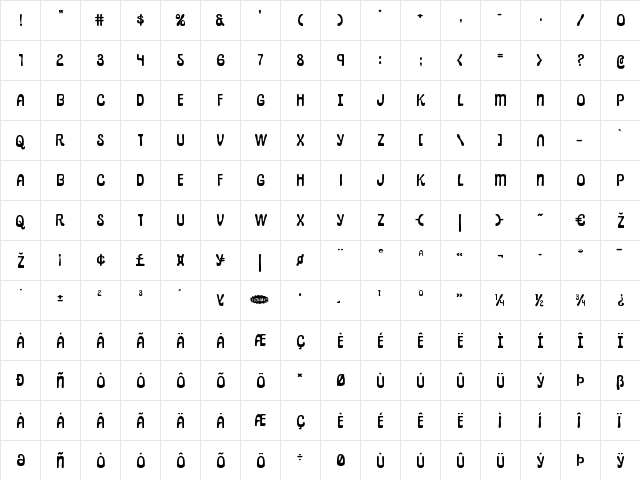
Pepperland Expanded
Design Context for Pepperland Expanded Typeface
Pepperland Expanded takes a measured approach to typography — its balanced proportions and neutral character make it a reliable workhorse for both digital and print work.